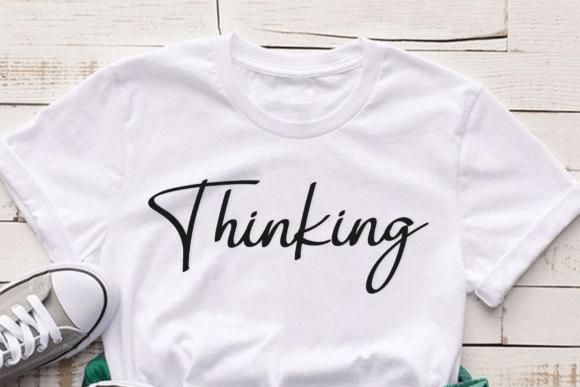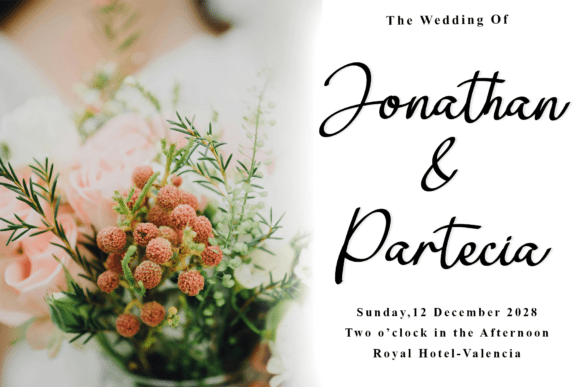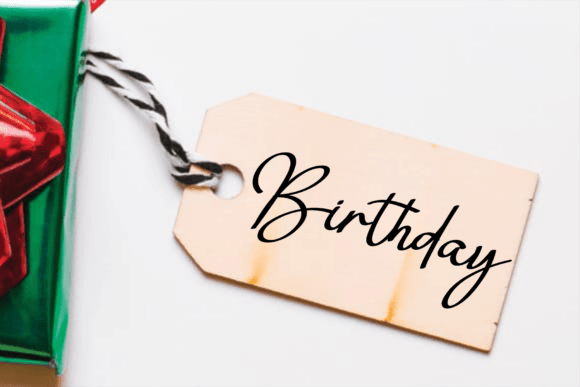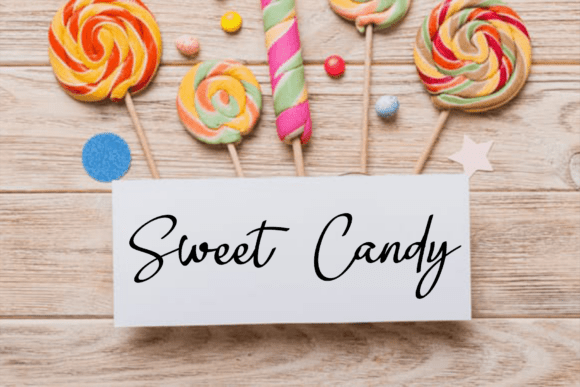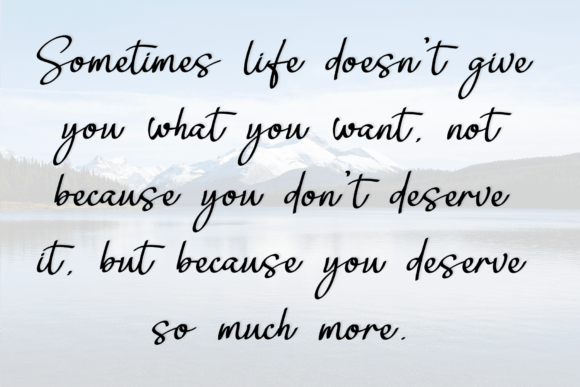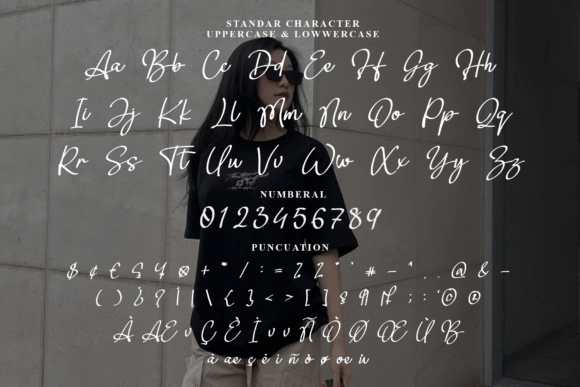
The Elegance of Aesthetic Styling Font: A Designer’s Dream Come True
I’ll never forget the moment I stumbled upon the perfect font for a client’s high-end branding project. I had been searching for what felt like an eternity, trying out font after font, but nothing seemed to capture the luxurious and personalized touch I was looking for. That was until I discovered Aesthetic Styling, a stunningly elegant and highly refined modern handwritten script font that embodies professional artistry. In this article, I’ll share my experience with Aesthetic Styling, its features, and how to make the most of this exquisite typeface.
An Honest Review of Aesthetic Styling
- ✨ Dramatic contrast between thick downstrokes and delicate hairlines: This feature gives Aesthetic Styling its unique and sophisticated look, perfect for high-end branding and luxury designs.
- ✅ Beautifully integrated ligatures and swashes: These enhance the font’s elegance and make it ideal for creating stunning headlines and titles.
- 💫 Conveys the quality of a skilled calligrapher: Aesthetic Styling’s refined and professional look makes it perfect for designs that require a personal touch.
While Aesthetic Styling is an exceptional font, there are a few things to keep in mind:
- 🤔 Some characters may require manual adjustment: Due to the font’s complex design, some characters might need manual adjustment to ensure proper spacing and alignment.
- ⚠️ Not suitable for body text: Aesthetic Styling is best used for headlines, titles, and short paragraphs, as its elegant design may not be suitable for longer texts.
The Story Behind Aesthetic Styling
Aesthetic Styling was designed by a team of skilled typographers who aimed to create a font that would embody professional artistry and luxury. Inspired by traditional calligraphy, they crafted a font that would deliver a personalized touch to high-end branding and designs. The result is a stunningly elegant and highly refined modern handwritten script font that is sure to impress.
| Font Name | Aesthetic Styling Font |
| Author | Creatype Designer |
Q: What is Aesthetic Styling font?
A: Aesthetic Styling is a modern handwritten script font that embodies professional artistry and luxury, characterized by its dramatic contrast between thick downstrokes and delicate hairlines, along with beautifully integrated ligatures and swashes.
Q: What is Aesthetic Styling best used for?
A: Aesthetic Styling is best used for high-end branding, luxury designs, and short paragraphs, such as headlines and titles.
Q: Does Aesthetic Styling support OpenType features?
A: Yes, Aesthetic Styling supports OpenType features, including ligatures, swashes, and stylistic alternates, making it easy to create unique and stunning designs.